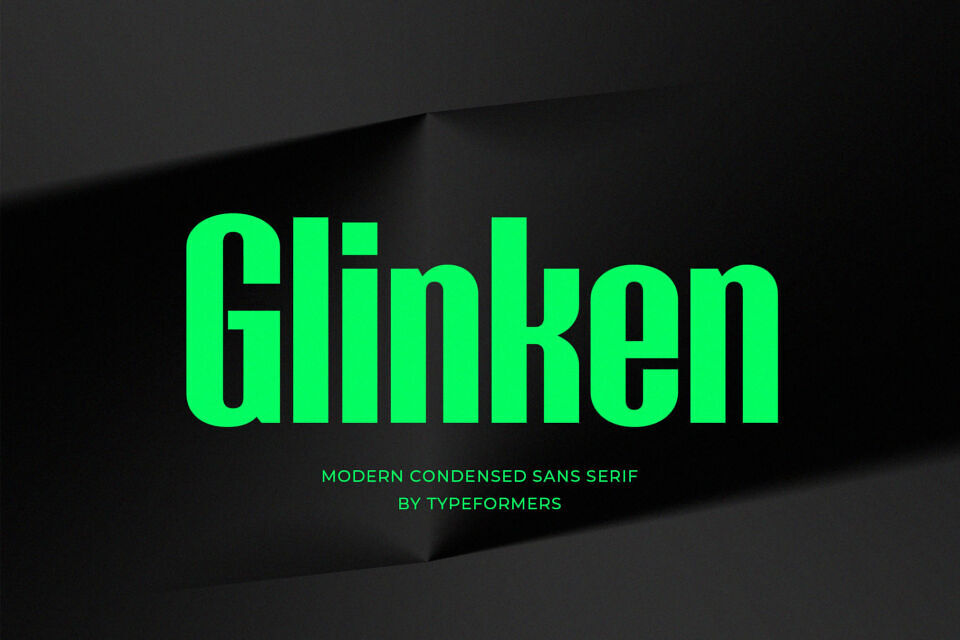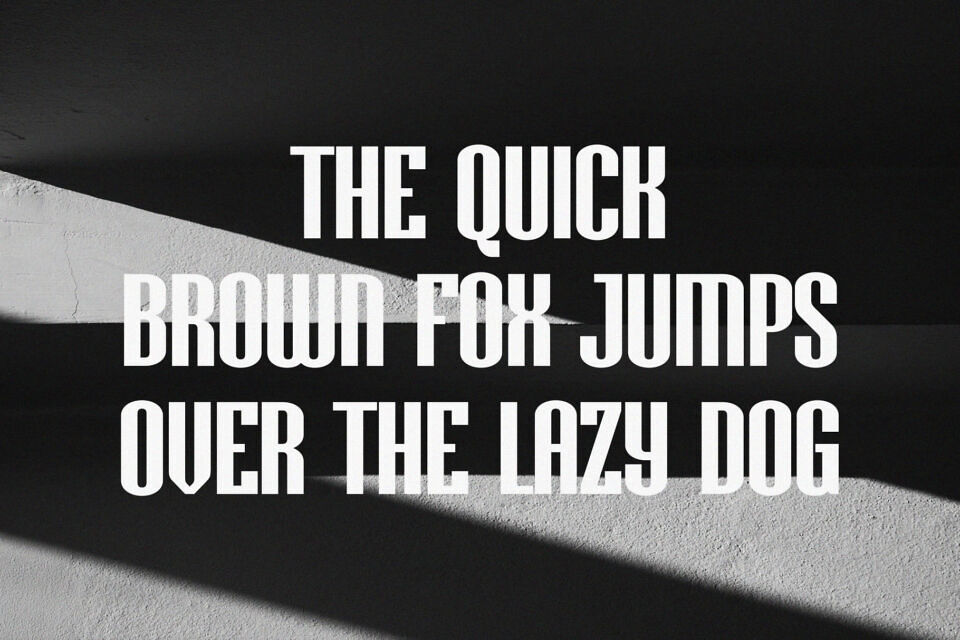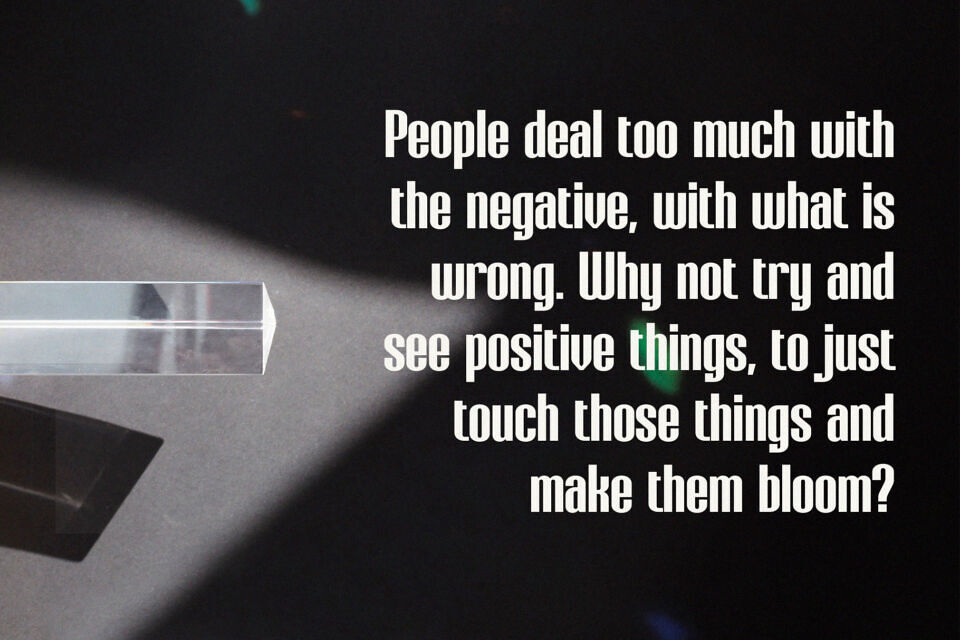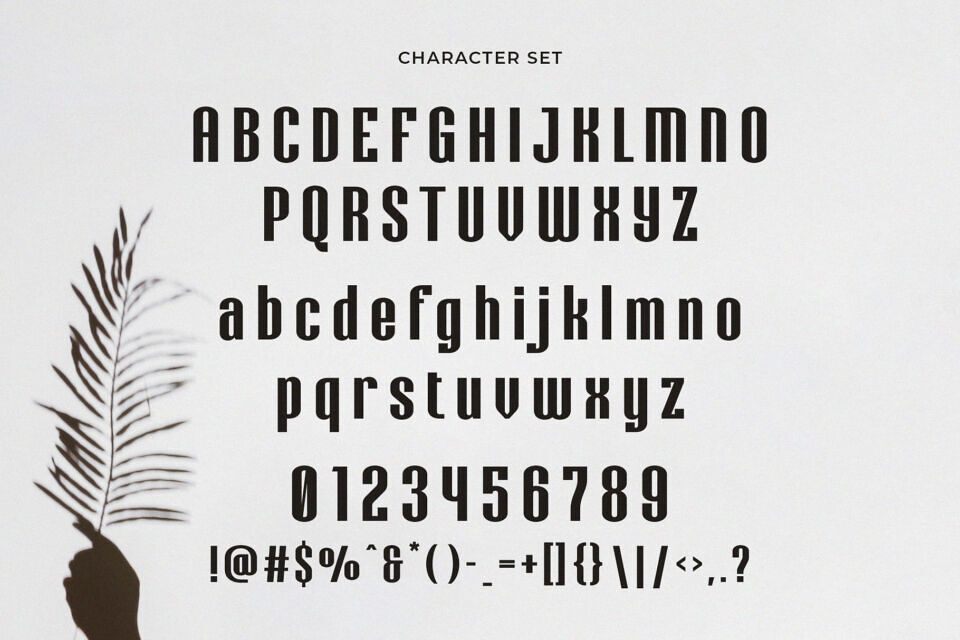
Glinken Font
Introducing Glinken, a Modern Condensed Sans Serif designed by Typeformers. Glinken is a modern and simple font, best used as a display for headings, logos, branding, magazines, product packaging and invitations.
Designed by: Typeformers